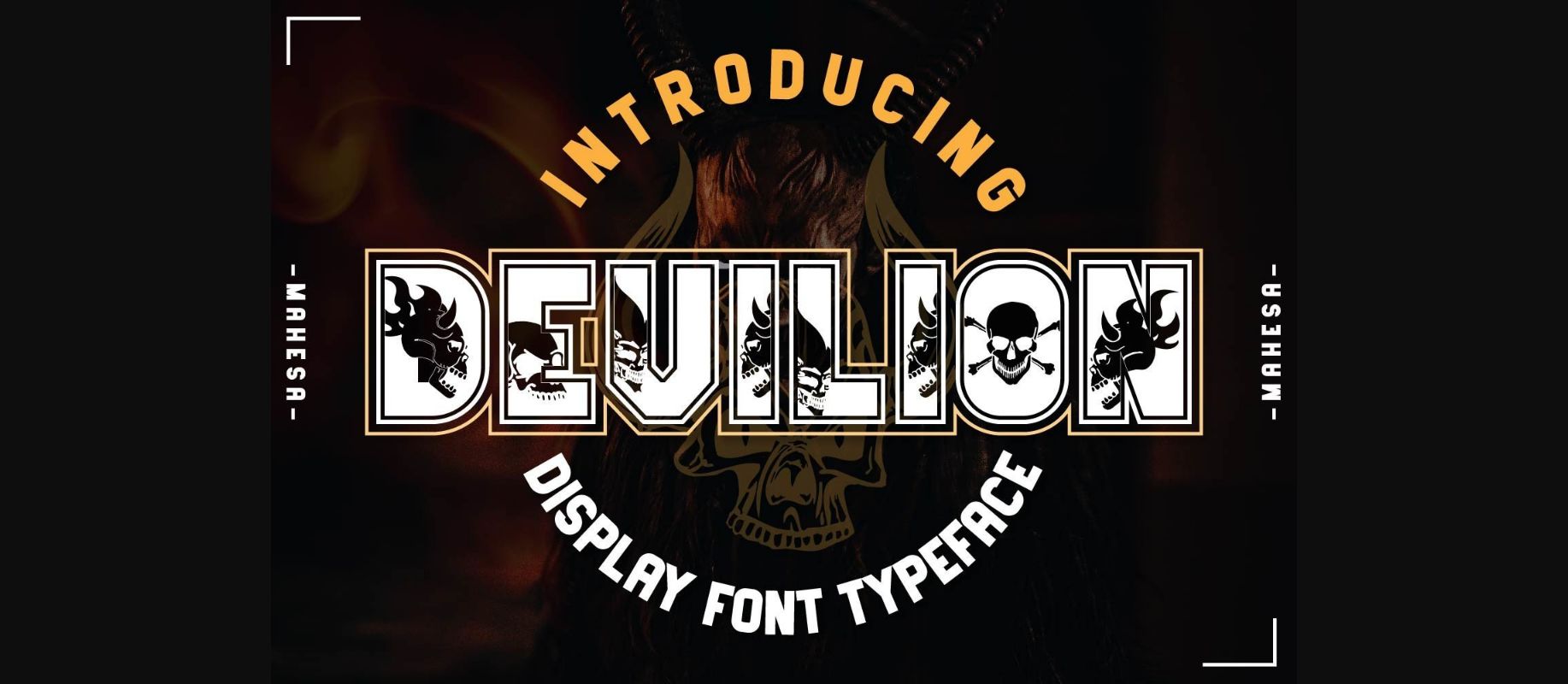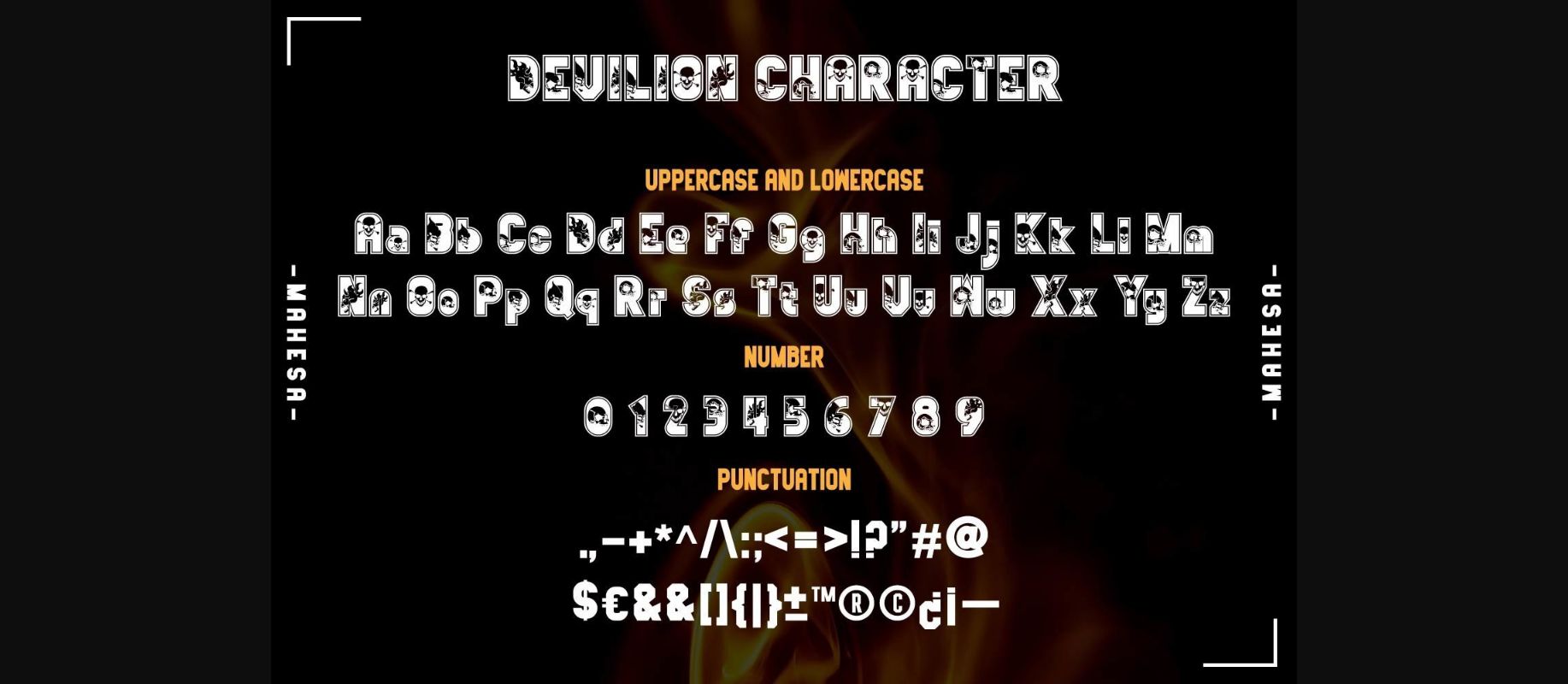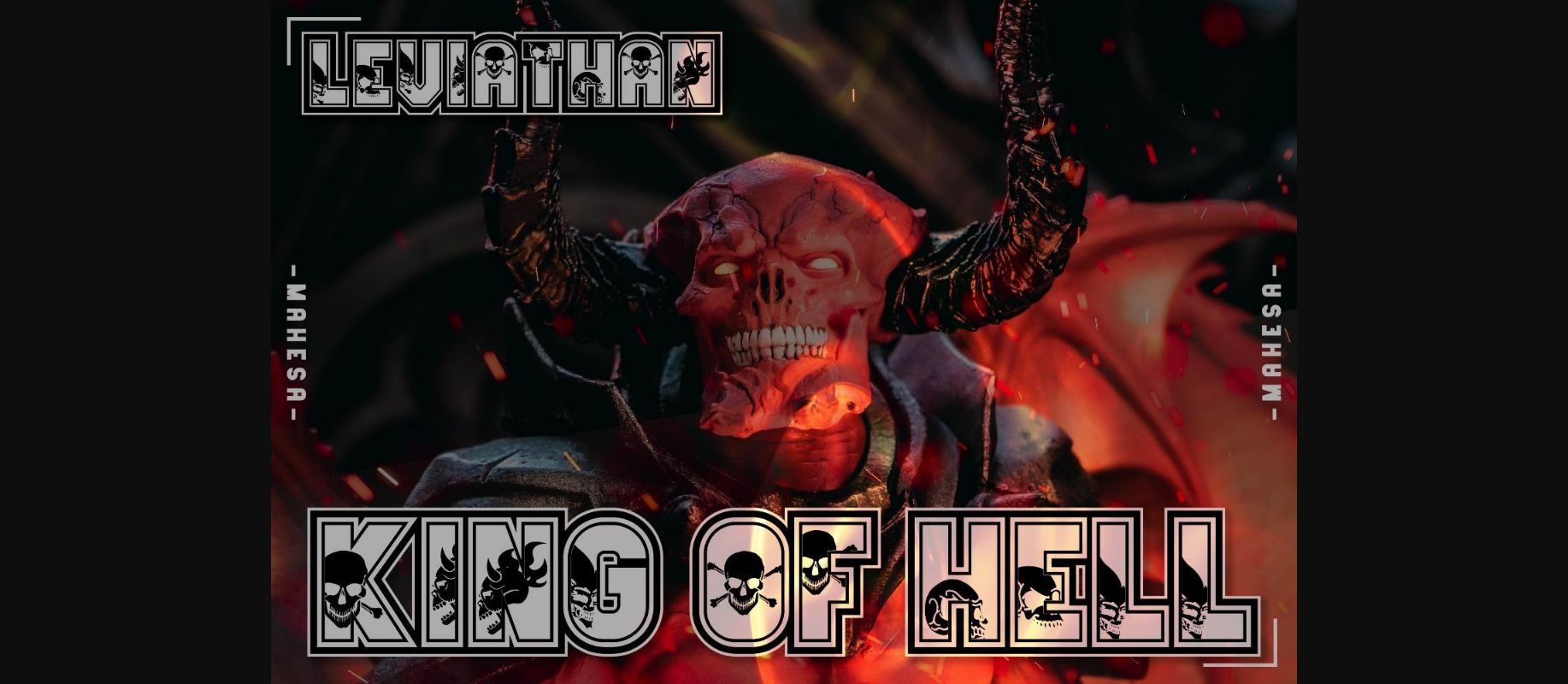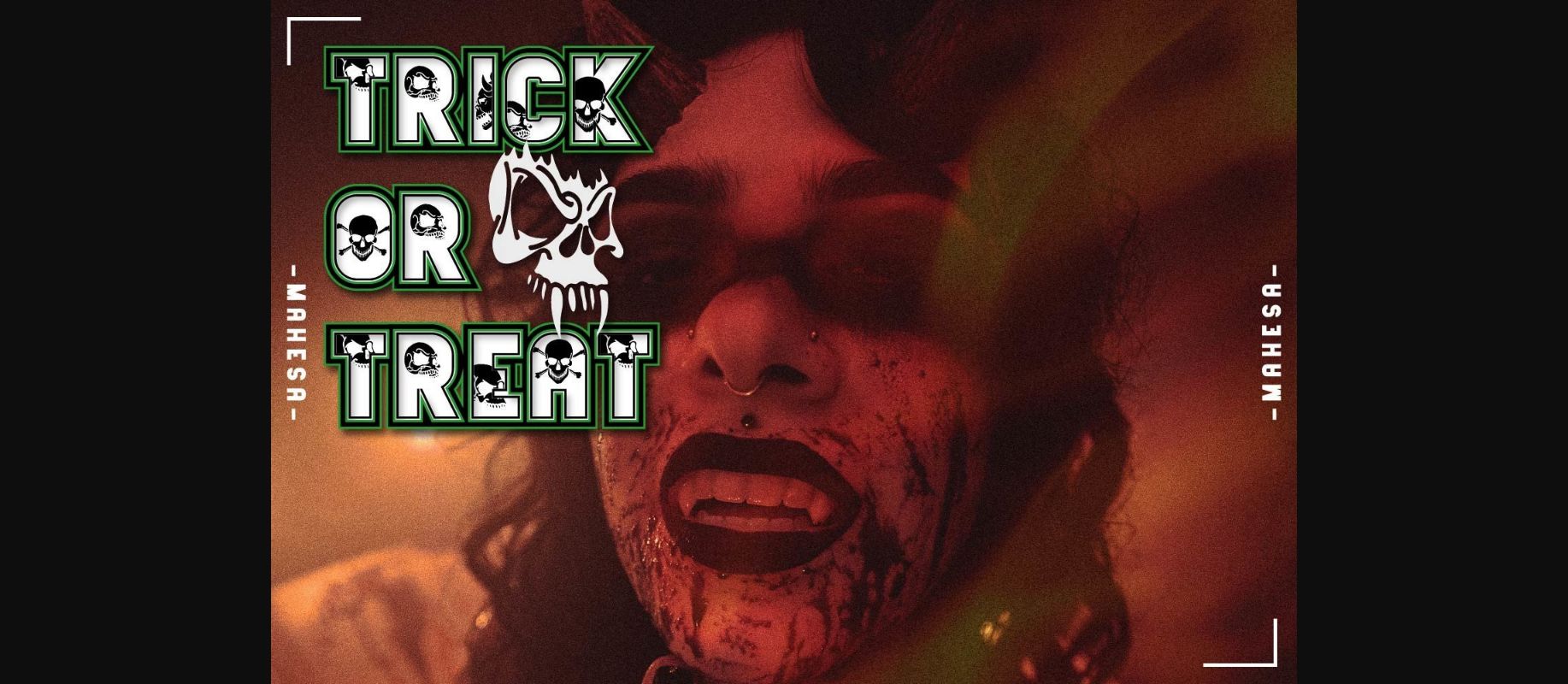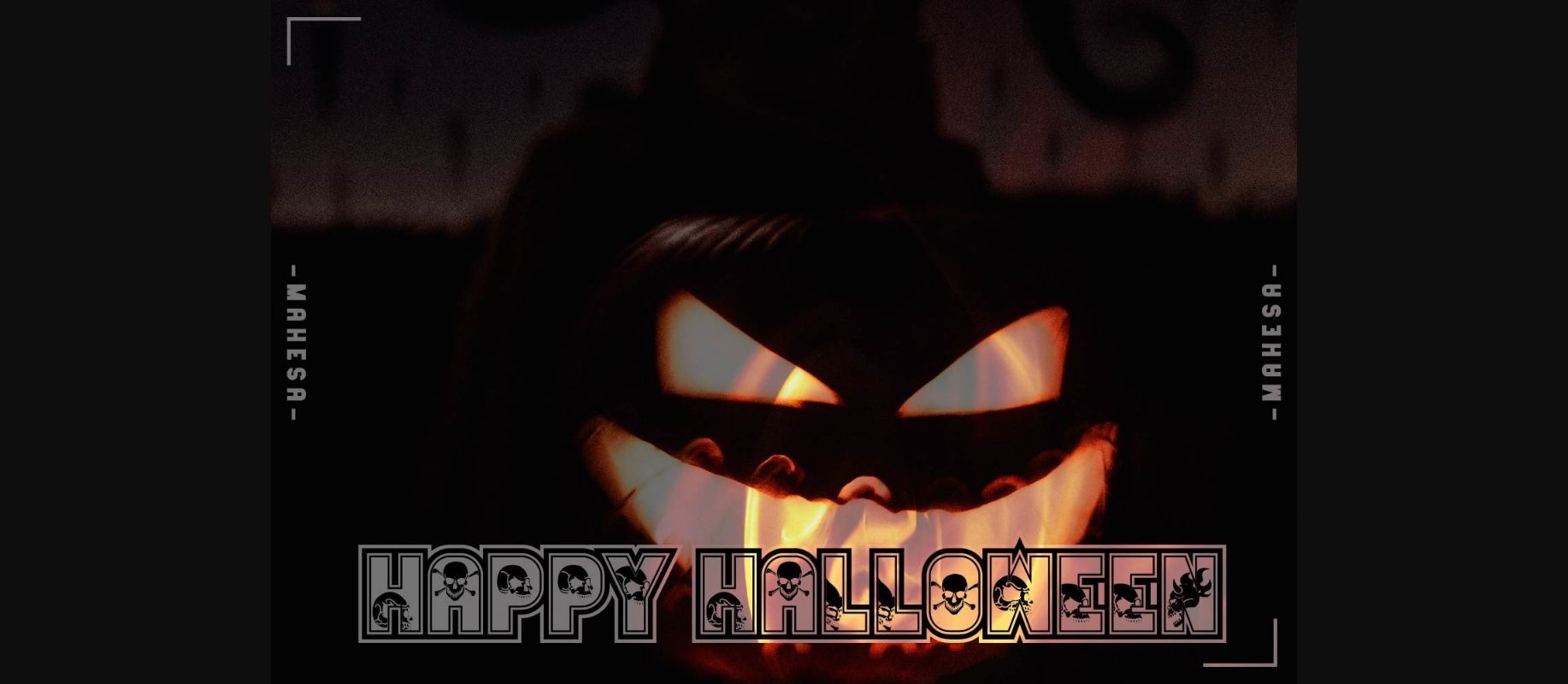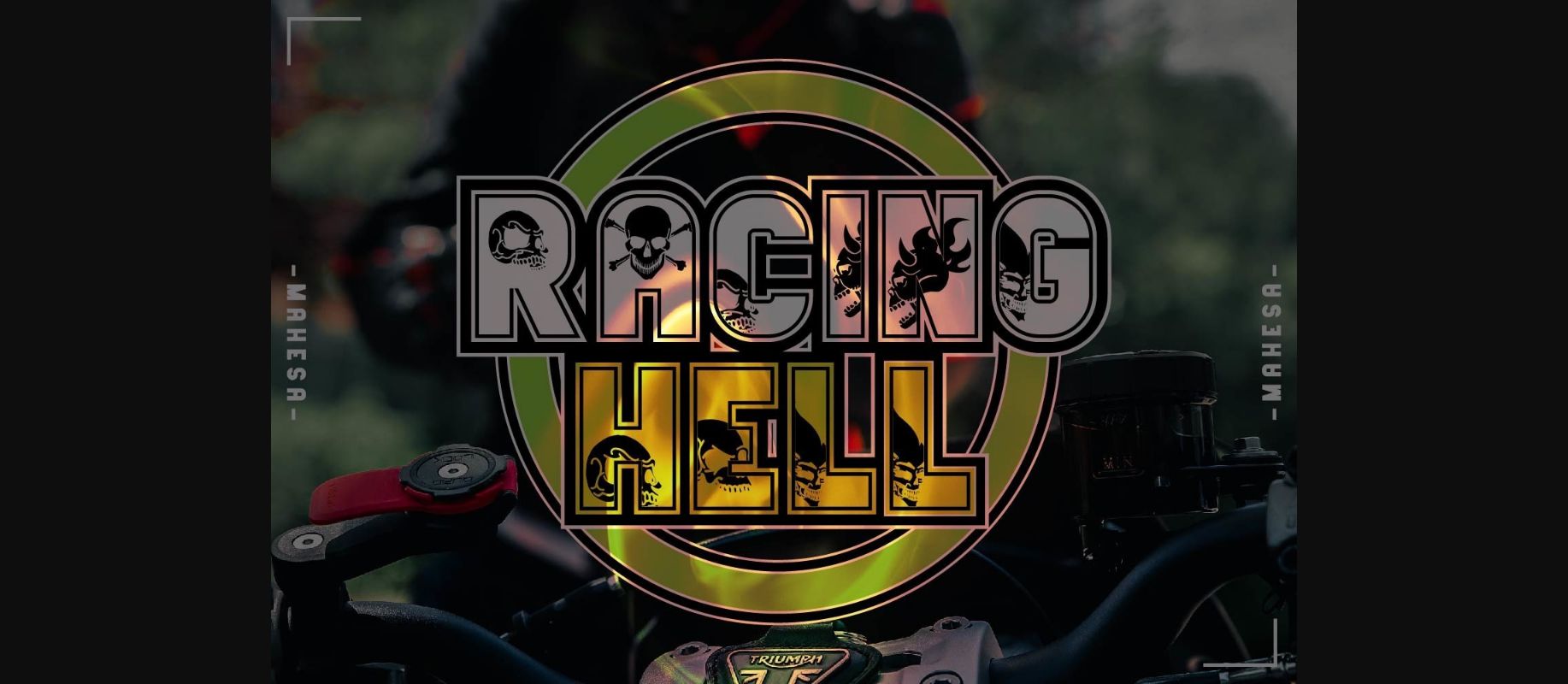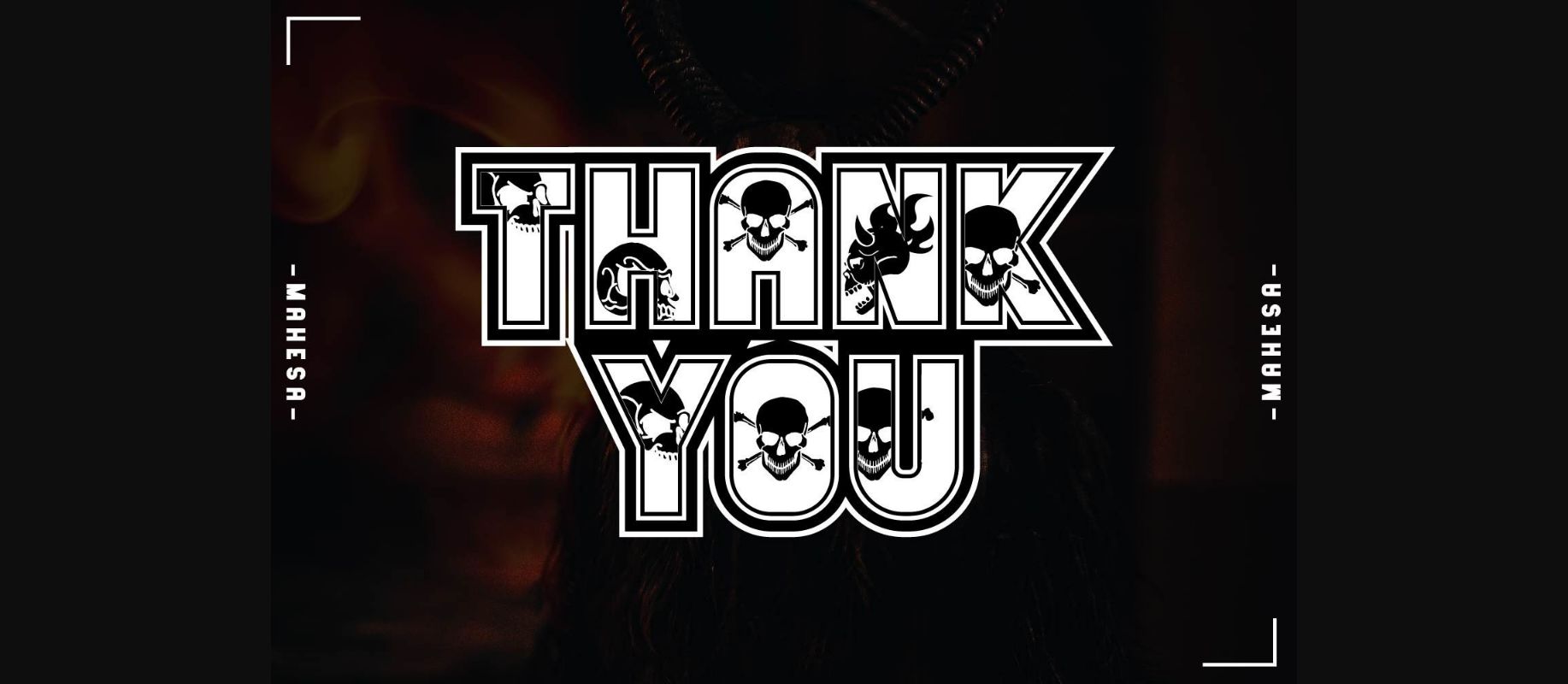
Devilion is a fun Halloween font that’s exactly what you’d expect to see on a poster or merchandise designed for Halloween. The additional element of the skull head makes it even more spooky, perfect for Halloween events.